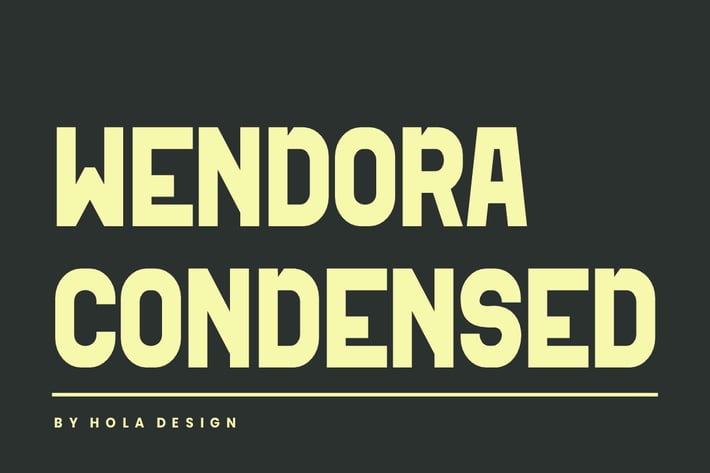
Wendora Condensed - Modern Sans Font
Wendora Condensed - Modern Sans Font is unique . Ready to use for your design like labeling, movie sceen, poster, movie title, gigs, album covers, logos, and much more.